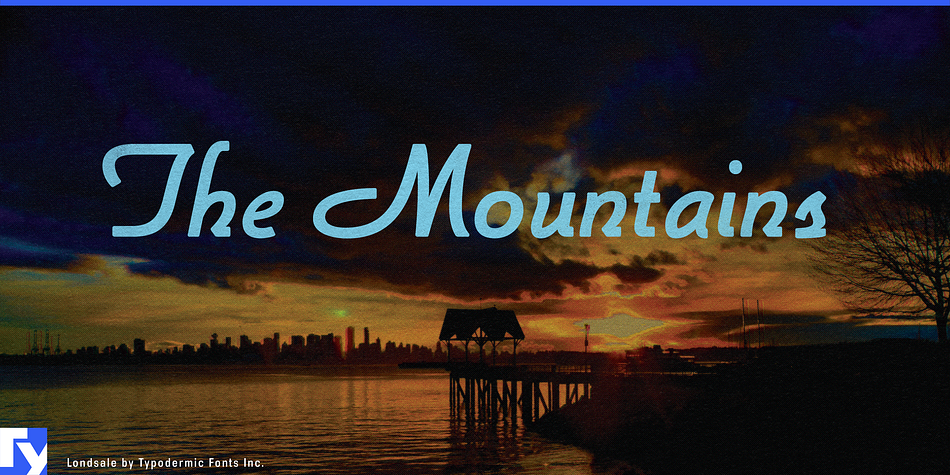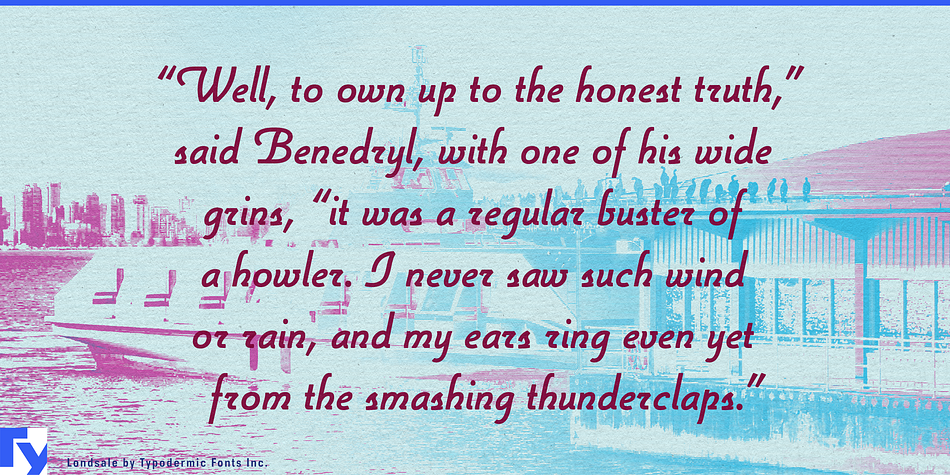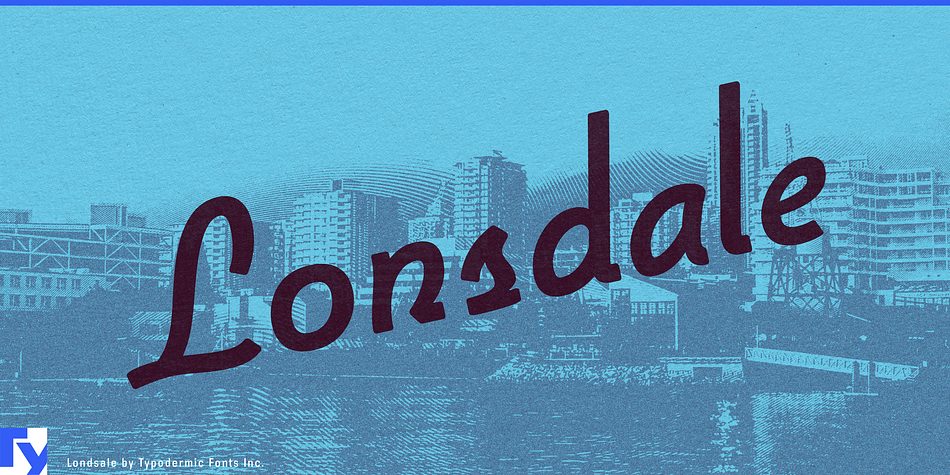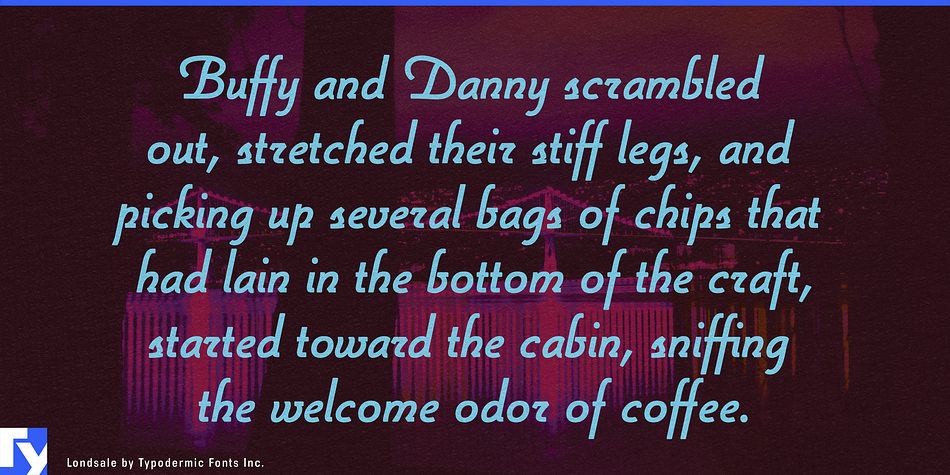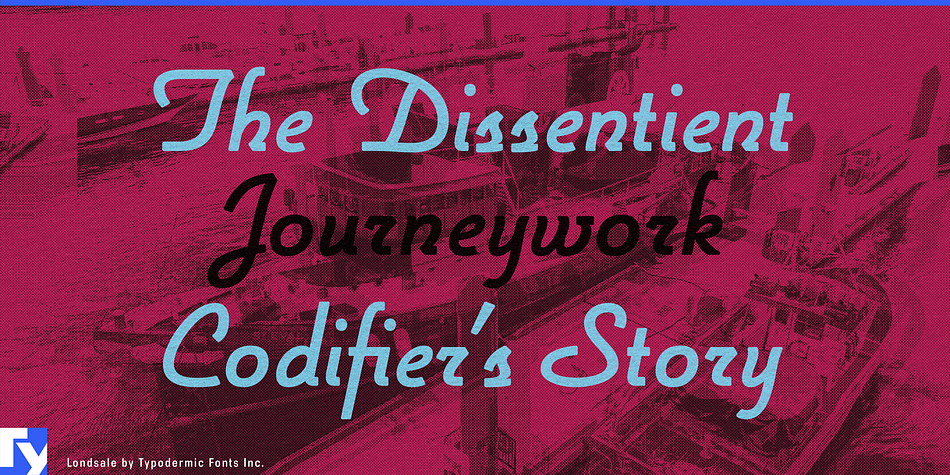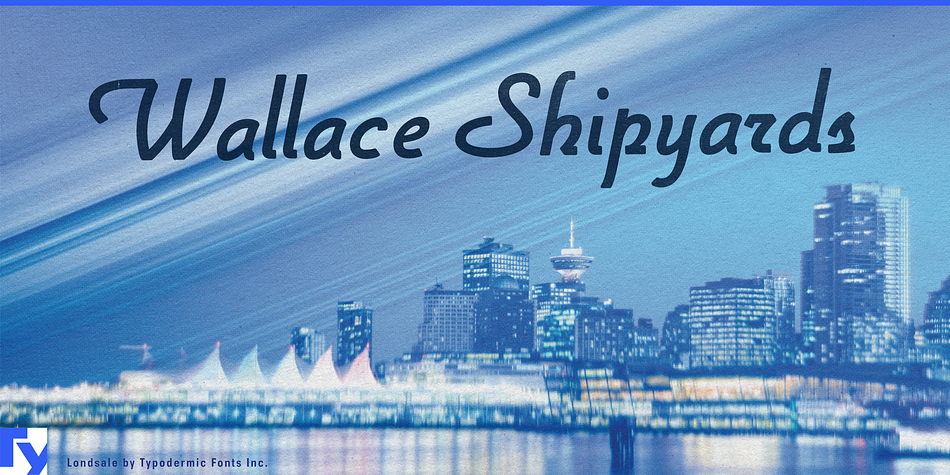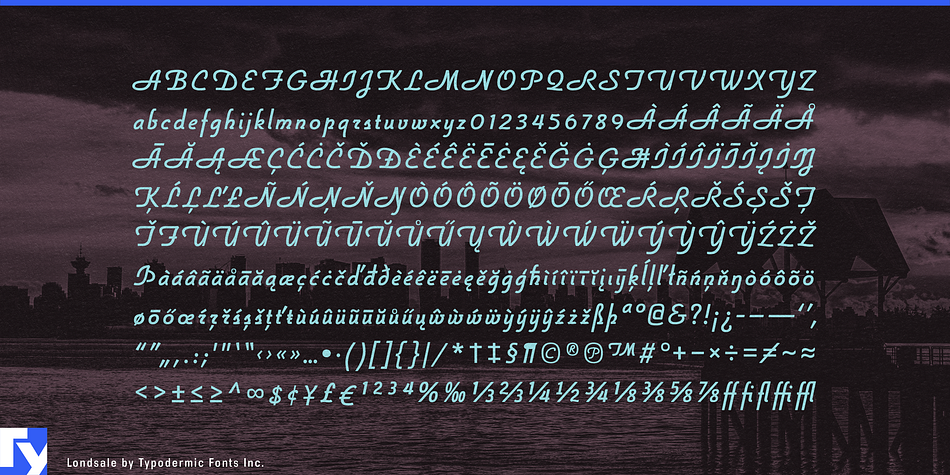
Lonsdale is a retro and script font published by Typodermic Fonts Inc.
Londsale is a structured script loosely based on a font called Parkway Script. Parkway Script was designed by Emil Hirt in 1964. Lonsdale’s capital letters are very similar to the capitals in Cinecav Script™, a closed-caption font.